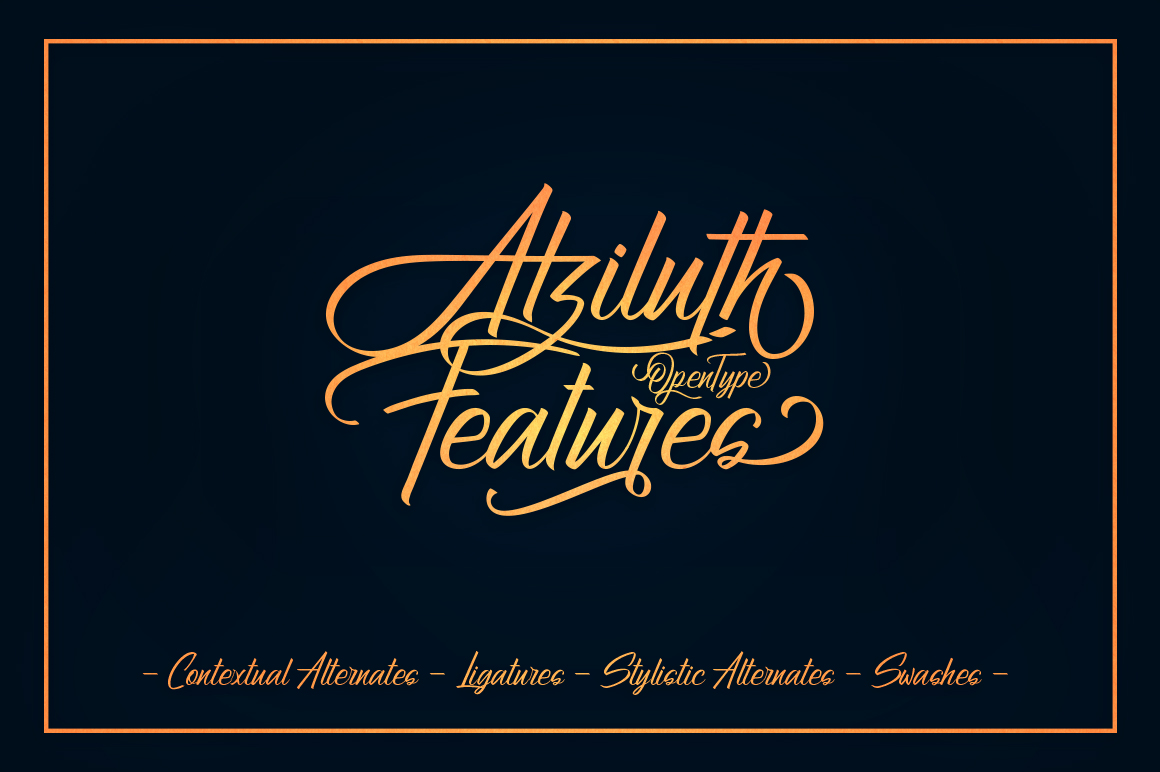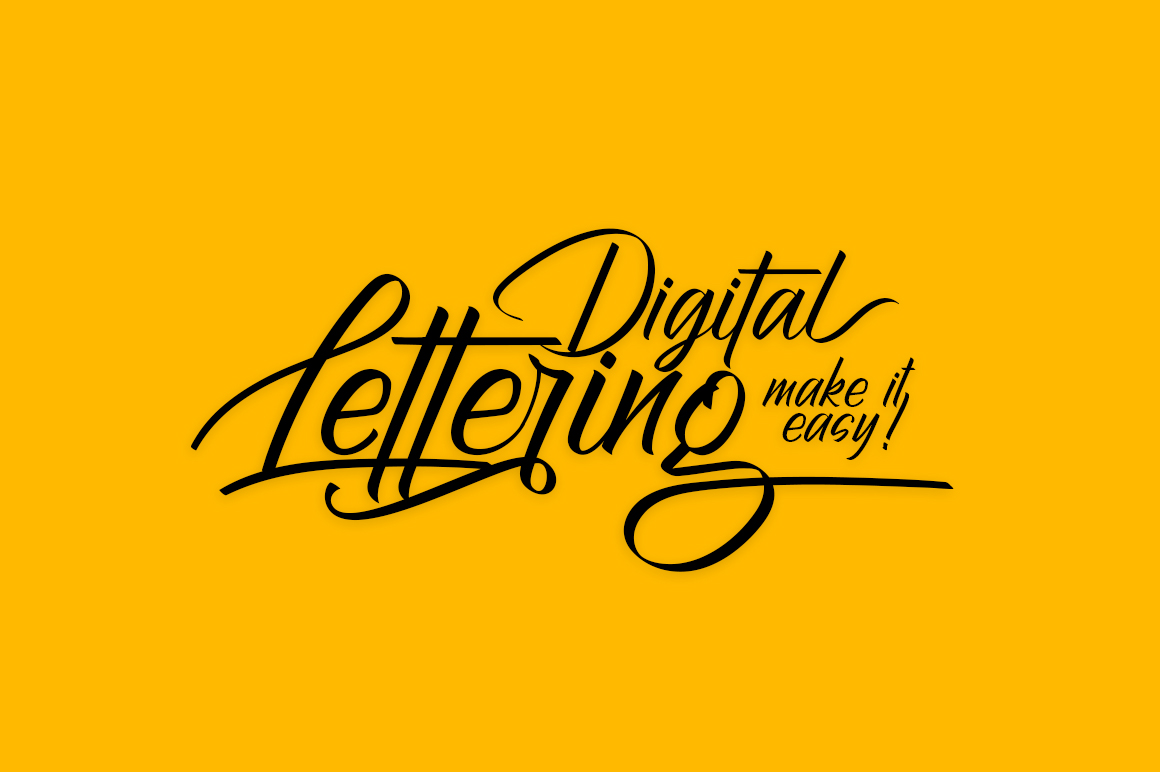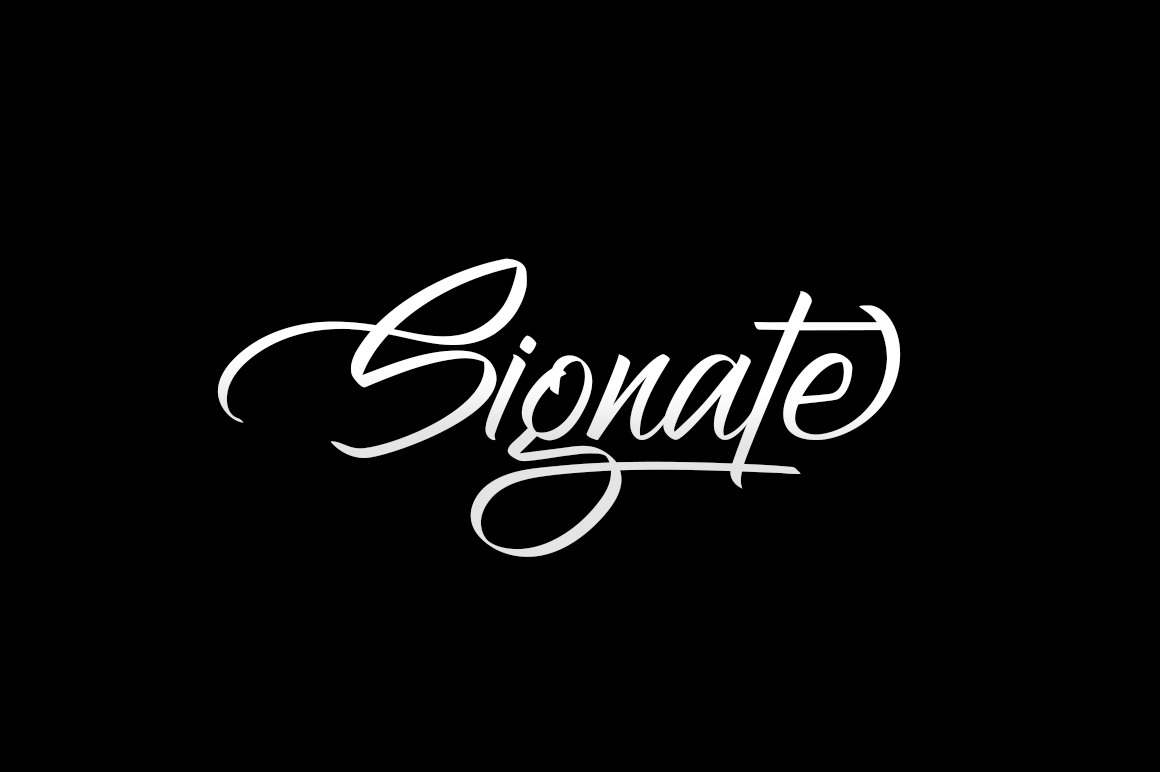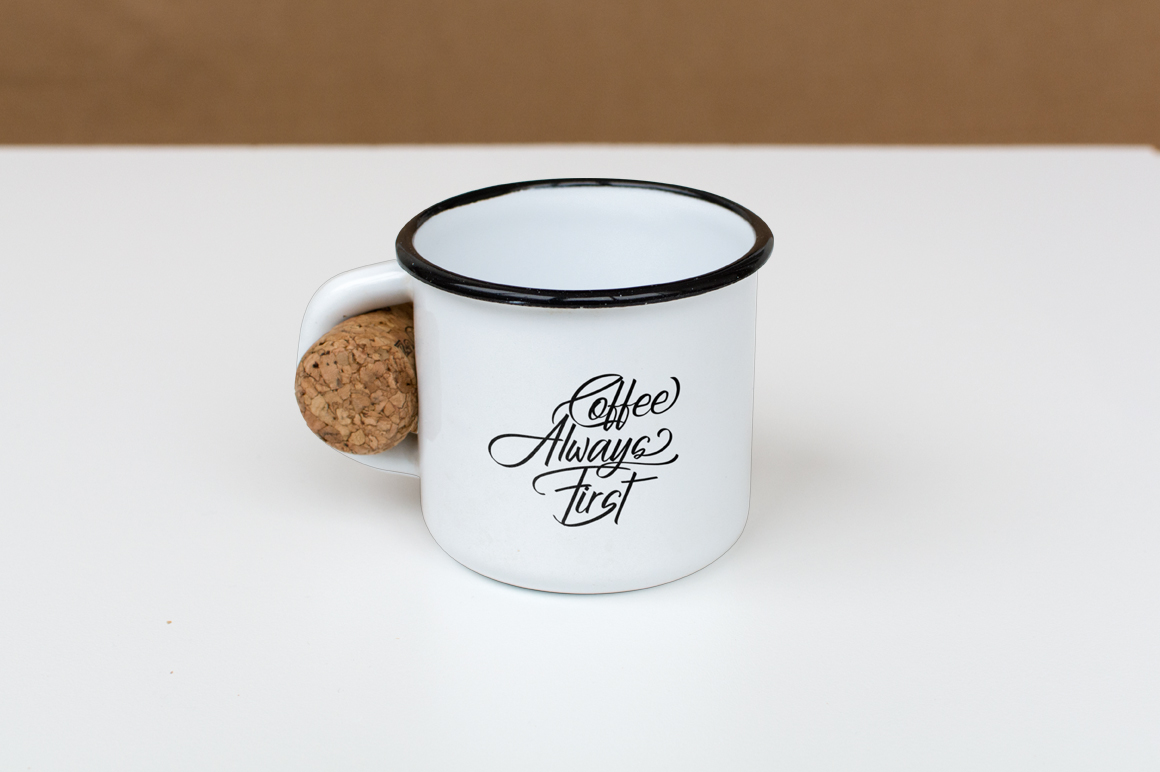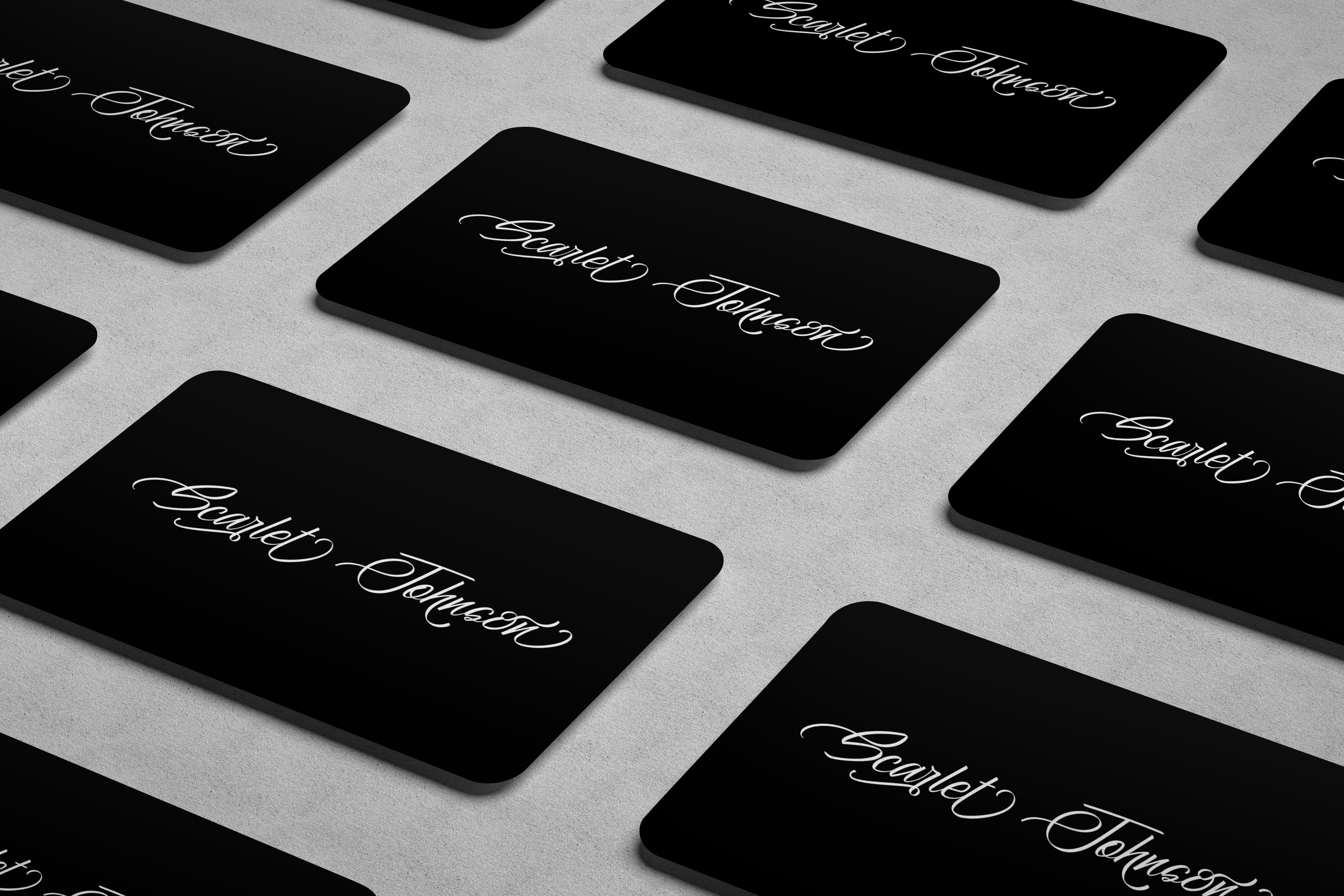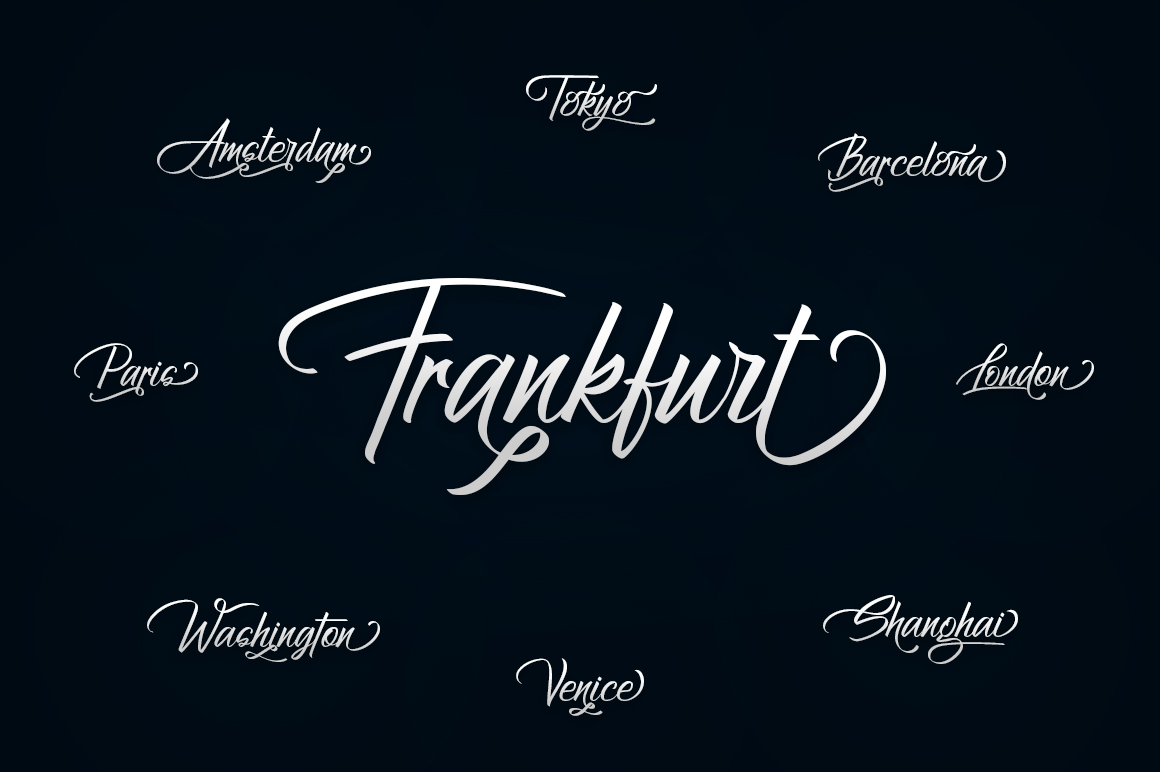
When a Single Font Can Elevate Your Brand
There’s something magical about the moment when a design comes together – the perfect balance of color, texture, and typography. It’s a feeling that’s hard to replicate, but when it happens, it’s pure magic. For designers, this moment is often the result of a well-chosen font, one that not only reflects the brand’s personality but also elevates it to new heights. Enter the Atziluth Font, a gorgeous script font that’s been designed to do just that.
With its calligraphic style and elegant flair, the Atziluth Font is a versatile tool for designers looking to create stunning brand identities. Whether you’re working on a logotype, a business card, or a packaging design, this font is sure to impress. Its abundance of alternates and ligatures makes it a valuable asset for any designer looking to add a touch of sophistication to their work.
Atziluth Font Key Features
- Font Family: Atziluth
- Character Set: Supports Latin, Cyrillic, and Hebrew scripts
- Unique Characteristics: Hand-drawn, elegant, and cursive design with subtle nuances in letterform connections
Atziluth Font Review
Atziluth Font is a beautiful and elegant typeface that caught my attention immediately. Here are some of the things I love about it: ✨
- Its unique blend of modern and traditional elements creates a sense of sophistication and timelessness.
- The font’s clean lines and precise letterforms make it perfect for use in various design contexts, from logos to body text.
- The font family includes multiple weights, allowing designers to create a consistent visual identity across different platforms.
- The font may not be as readable at smaller sizes, making it less suitable for text-heavy content.
- The font’s unique style may not be to everyone’s taste, and some users may find it too ornate or overwhelming.
- The font’s file size is relatively large, which may impact website loading times or make it more difficult to use in certain design applications.
Overall, I think Atziluth Font is a great choice for designers looking to add a touch of elegance and sophistication to their projects. While it may have some limitations, its unique style and versatility make it a valuable addition to any design toolkit.
Getting the Most Out of Atziluth Font
Use Atziluth Font to create visually appealing and unique designs. Experiment with different font sizes, colors, and styles to achieve the desired effect.
Atziluth Font is particularly suitable for:
– Creative projects (e.g., graphic design, illustration, typography)
– Branding and marketing materials (e.g., logos, business cards, brochures)
– Artistic and decorative designs (e.g., posters, flyers, invitations)
Alternatives to Atziluth Font
Playfair Display is an elegant, high-end serif font ideal for luxury brands, magazines, and high-end publications. It features intricate details and ornate flourishes, making it perfect for creating a sophisticated and luxurious atmosphere.
Compared to Atziluth Font, Playfair Display has a more classical and traditional feel, whereas Atziluth Font has a more modern and unique aesthetic. Playfair Display is better suited for formal and high-end designs, while Atziluth Font is more versatile and can be used in a variety of contexts.
Great Vibes is a modern, elegant script font that is perfect for creating a sophisticated and luxurious atmosphere. It features flowing lines and a classic feel, making it ideal for high-end brands, weddings, and special events.
Compared to Atziluth Font, Great Vibes has a more classic and timeless feel, whereas Atziluth Font has a more modern and unique aesthetic. Great Vibes is better suited for formal and high-end designs, while Atziluth Font is more versatile and can be used in a variety of contexts.